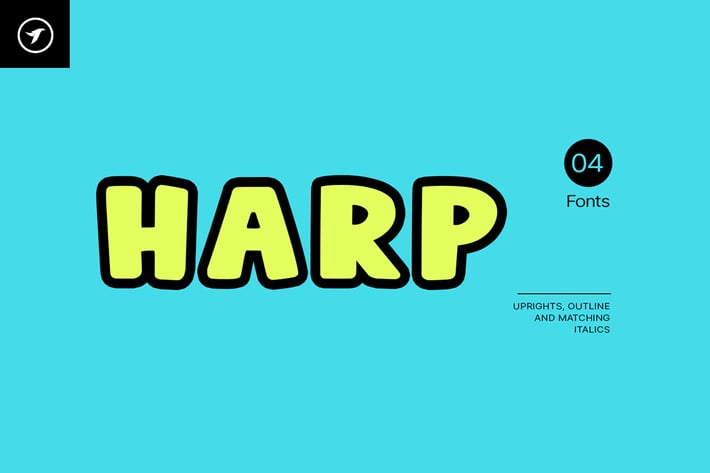
Harp - A Cute & Lovely Display Font
Harp is a cute and lovely display typeface, perfect for making a variety of designs, from branding materials to social media graphics. It's perfect for creating logos, headlines, posters, and more. This all-caps font is designed to be bold and attention-grabbing, and your viewers will notice it at the first glance itself. Please see the design examples shown above to get an idea of the capability of this typeface.
All fonts in Harp family come with extended language support including Western European, Central European, and South-Eastern European character sets (a total of 279 glyphs).